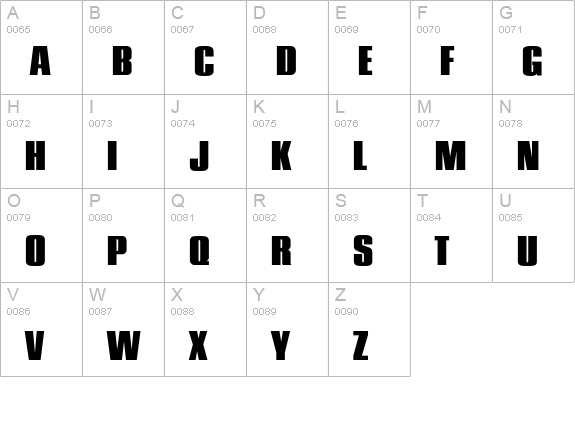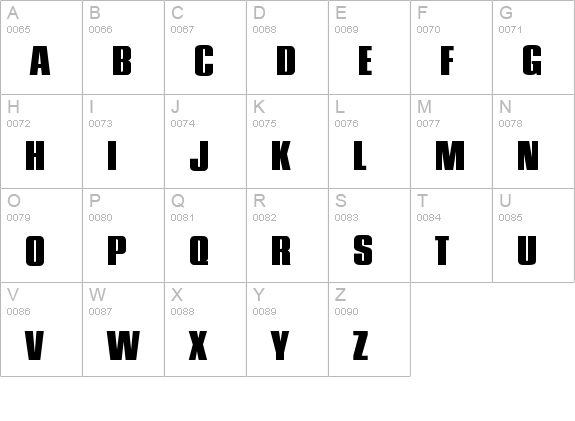
Plakette-Heavy is a heavy, high-impact variant in the Plakette typeface family \xE2\x80\x94 well suited to high-impact headlines, posters, and display advertising.
Plakette-Heavy font is a stunning typeface that exudes strength and boldness. With its thick and powerful letterforms, it commands attention and makes a strong impact. This font is perfect for headlines, logos, posters, and any design project that requires a powerful and assertive presence. The Plakette-Heavy font is characterized by its robust and solid appearance, making it ideal for conveying a message with confidence and authority. Its sharp edges and clean lines give it a modern and contemporary feel, while still maintaining a classic and timeless elegance. One of the best aspects of Plakette-Heavy font is that it is absolutely free to download. That's right, you can easily get your hands on this remarkable font without spending a single penny. It is freely available to download at FontsMarket.com, a trusted source for high-quality fonts. Whether you are a professional designer or a casual enthusiast, Plakette-Heavy font is a must-have in your font collection. Its versatility and eye-catching design make it suitable for a wide range of projects, from branding and advertising to invitations and social media graphics. So why wait? Take advantage of this incredible opportunity to enhance your designs with the captivating Plakette-Heavy font. Download it for free at FontsMarket.com and let your creativity soar.